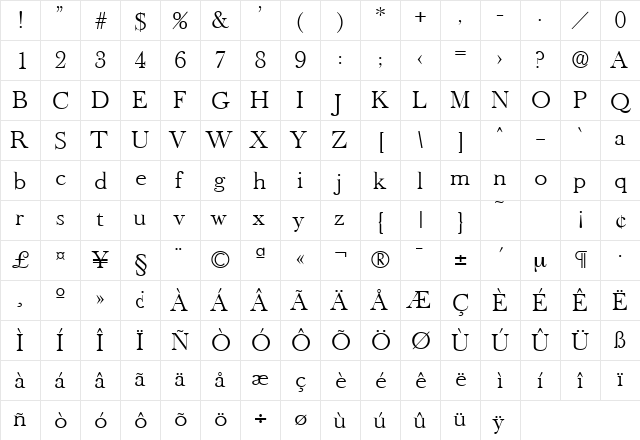
BaskervilleOld-Serial-Light Regular
Design Context for BaskervilleOld-Serial-Light Typeface
BaskervilleOld-Serial-Light is a composed and adaptable typeface that performs quietly and consistently across a wide range of design contexts. The delicate stroke weight brings airiness and refinement to layouts.